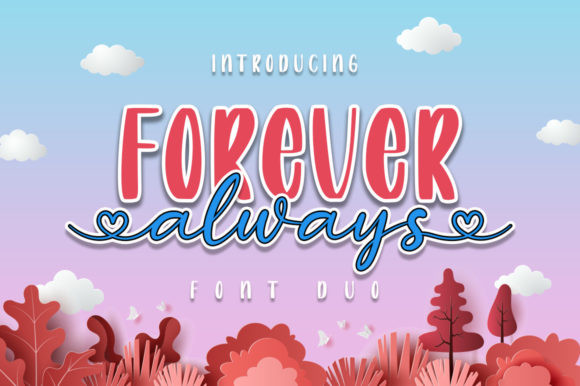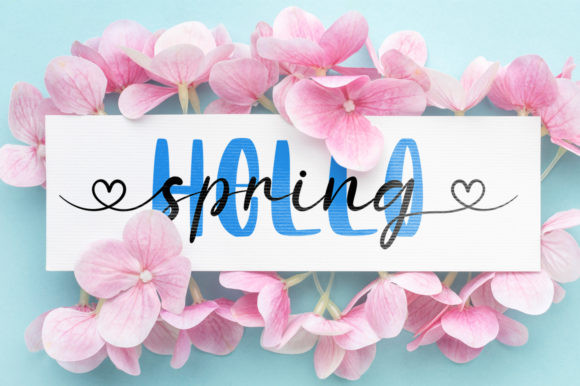
Always Forever Font
Always Forever FontAlways Forever is a duo styled handwritten font which feels equally charming and elegant. It looks stunning on wedding invitations, thank you cards, quotes, greeting cards, logos, business cards, and every other design which needs a handwritten touch.